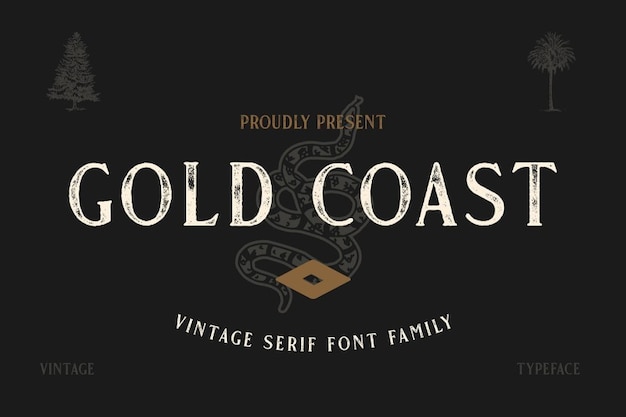
Gold Coast
Gold Coast Font
Discover Gold Coast, where modern meets elegant simplicity. This font effortlessly combines sleek, contemporary design with a timeless touch. Whether you're crafting a minimalist masterpiece or a stylish logo, Gold Coast adds sophistication to every project. It's the go-to choice for designers seeking a perfect blend of modernity and class. Elevate your visuals and make a statement with Gold Coast today.
Gold Coast Regular (400)
Gold Coast Regular (Outline) (400)
Gold Coast Regular (Rough) (400)
Gold Coast Regular (Stamp) (400)